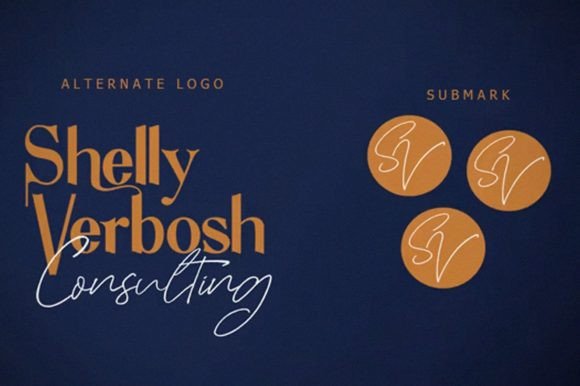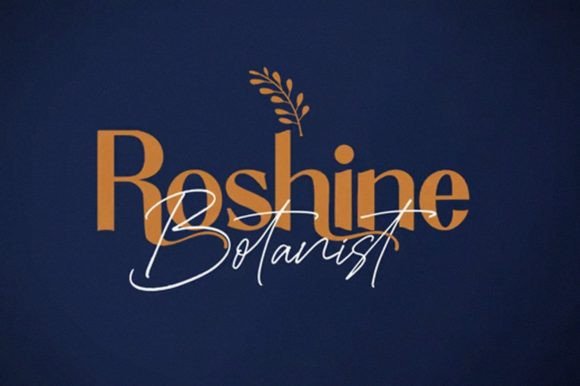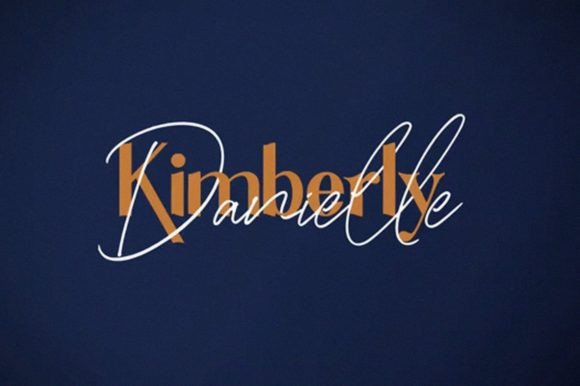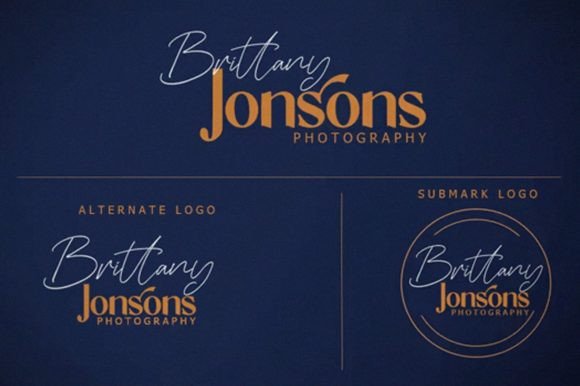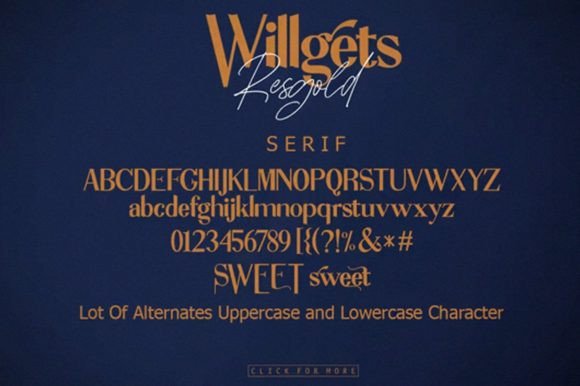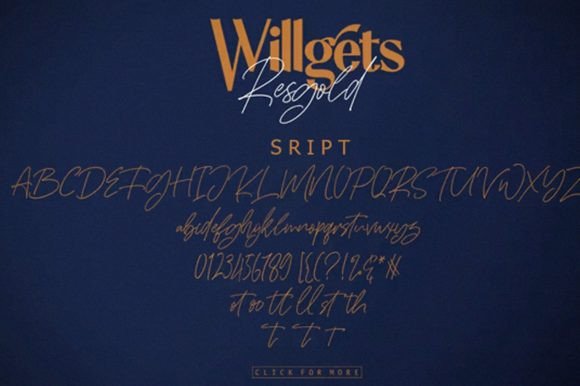
Introduction to Resgold Willgets Font
Resgold Willgets is a luxury font duo consisting of an elegant script and a beautiful serif, both very attractive.
Resgold Willgets Script looks very clean and attractive Resgold Willgets Serif is a stylish and modern Serif.
Key Features of Resgold Willgets Font